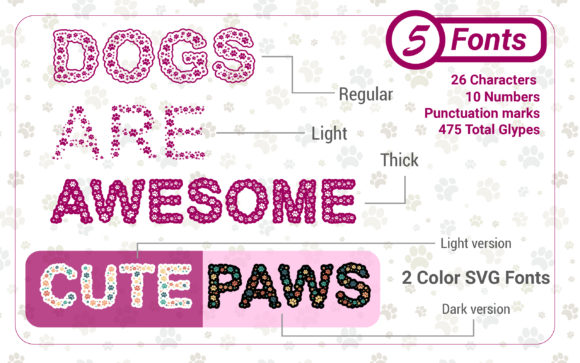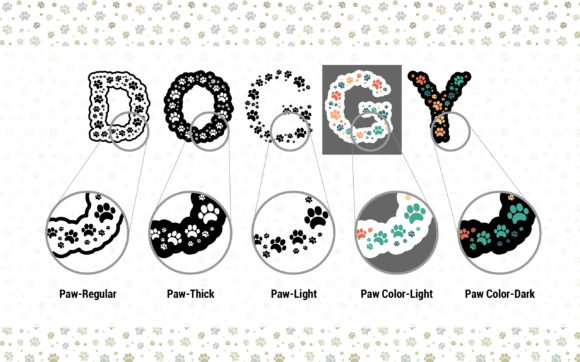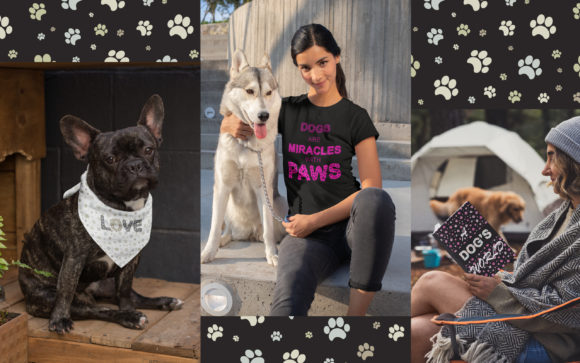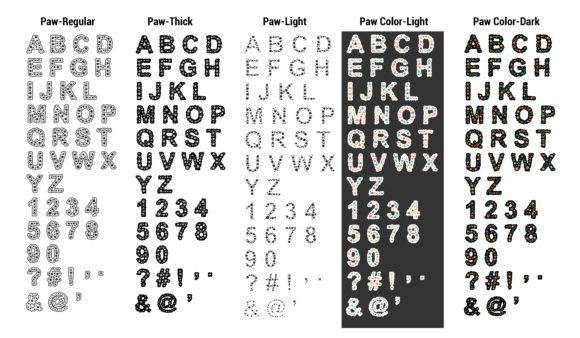
Introducing Dog Paws Font: The Perfect Companion for Your Design Projects
Are you looking for a font that exudes warmth, friendliness, and playfulness? Look no further than Dog Paws Font! This adorable decorative font is designed to bring a smile to your face and a touch of whimsy to your designs. With its incredibly friendly feel, Dog Paws Font is the perfect fit for a wide range of projects, from logos and branding to social media graphics and crafty DIY endeavors.
What Makes Dog Paws Font So Special?
Dog Paws Font is a cute and casual decorative font that is sure to capture the hearts of designers and crafters alike. Its unique and charming design makes it an excellent choice for anyone looking to add a personal touch to their work. Here are just a few reasons why Dog Paws Font stands out from the crowd:
- Unique and Charming Design: Dog Paws Font features a distinctive design that is reminiscent of dog paw prints. Its quirky and playful style is sure to add a touch of personality to any project.
- Friendliness and Approachability: The font’s friendly and approachable feel makes it perfect for designs that require a warm and inviting tone.
- Versatility: Dog Paws Font is incredibly versatile and can be used for a wide range of projects, from logos and branding to social media graphics, crafty DIY projects, and more.
When it comes to creating a logo or branding materials, it’s essential to choose a font that accurately reflects your brand’s personality and tone. Dog Paws Font is an excellent choice for logos and branding projects that require a friendly and approachable feel. Its unique design and playful style make it perfect for:
- Pet-related businesses: If you’re creating a logo or branding materials for a pet-related business, such as a pet store, veterinary clinic, or animal shelter, Dog Paws Font is an excellent choice.
- Children’s products and services: The font’s playful and whimsical design makes it perfect for children’s products and services, such as toys, clothing, and educational materials.
- Creative and crafty businesses: If you’re a crafter, artist, or creative entrepreneur, Dog Paws Font is an excellent choice for your branding materials, such as business cards, brochures, and website headers.
Ideal for Social Media Graphics and DIY Projects
Dog Paws Font is not just limited to logos and branding materials. Its friendly and playful design makes it perfect for social media graphics and crafty DIY projects, such as:
- Social media posts and graphics: Add a touch of personality to your social media posts and graphics with Dog Paws Font. Its friendly and approachable feel makes it perfect for engaging with your audience.
- Crafty DIY projects: If you’re a crafter or DIY enthusiast, Dog Paws Font is an excellent choice for your projects, such as handmade cards, gift tags, and scrapbooking.
- Party decorations and invitations: The font’s playful design makes it perfect for party decorations and invitations, such as birthday parties, baby showers, and other celebrations.
Tips for Using Dog Paws Font
Here are a few tips for using Dog Paws Font in your designs:
- Pair it with complementary fonts: Dog Paws Font works well with a variety of fonts, so don’t be afraid to experiment and find the perfect combination for your design.
- Use it in different sizes and colors: The font’s playful design makes it perfect for use in different sizes and colors. Experiment with different combinations to add visual interest to your design.
- Add graphics and illustrations: Dog Paws Font pairs well with graphics and illustrations, so consider adding them to your design to create a cohesive and visually appealing look.
Dog Paws Font is a unique and charming decorative font that is sure to bring a touch of warmth and friendliness to your designs. Its versatility and playful style make it perfect for a wide range of projects, from logos and branding to social media graphics and crafty DIY endeavors. Whether you’re a designer, crafter, or DIY enthusiast, Dog Paws Font is an excellent choice for adding a personal touch to your work.